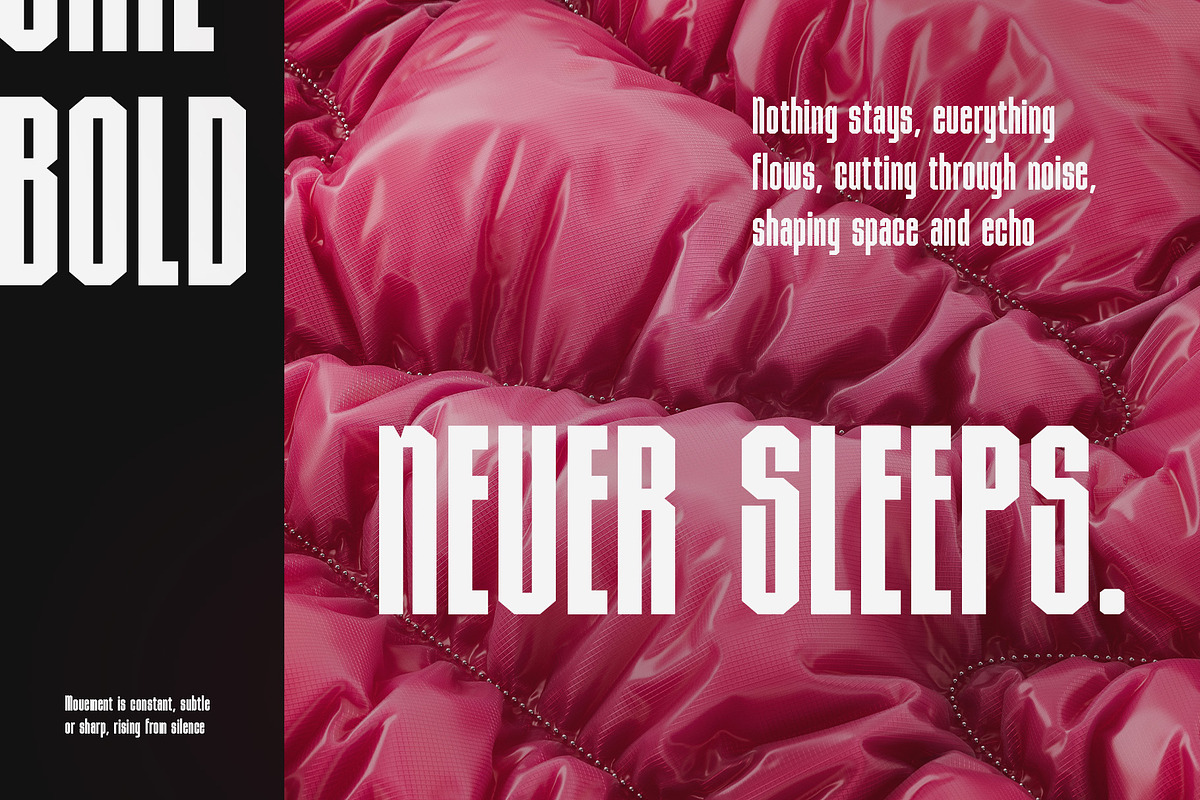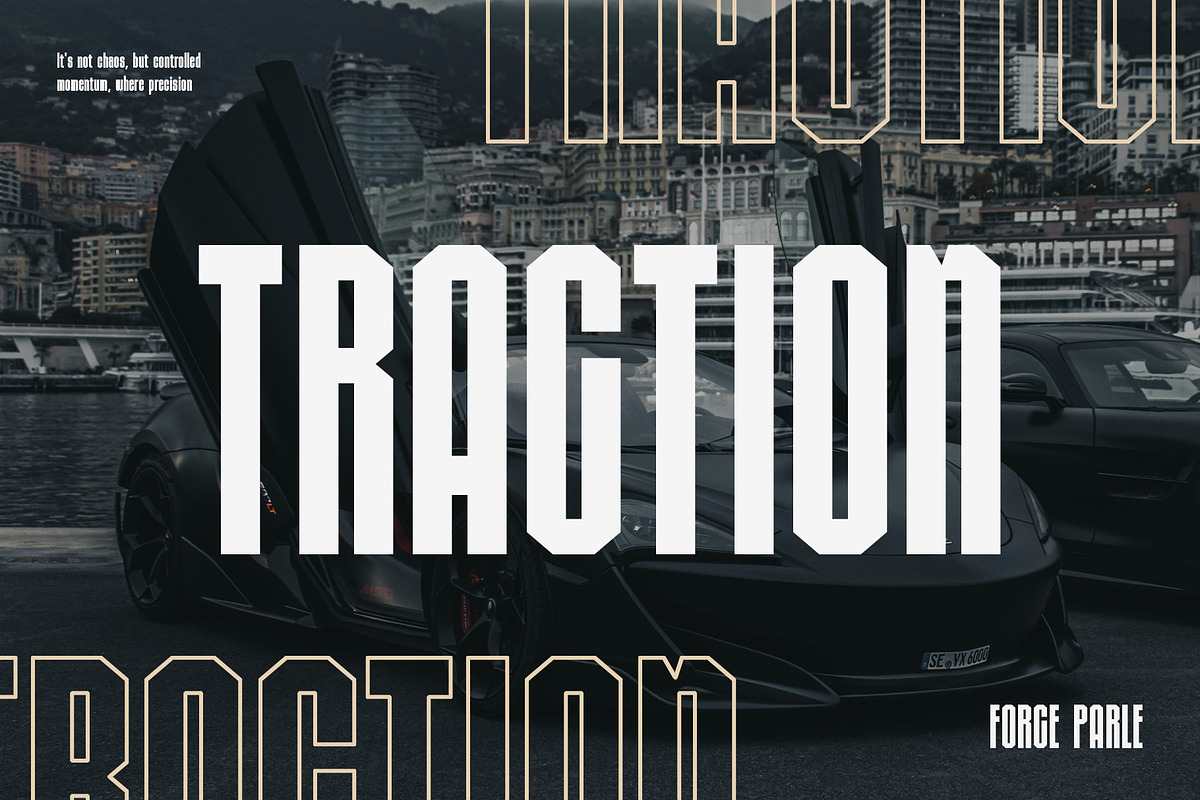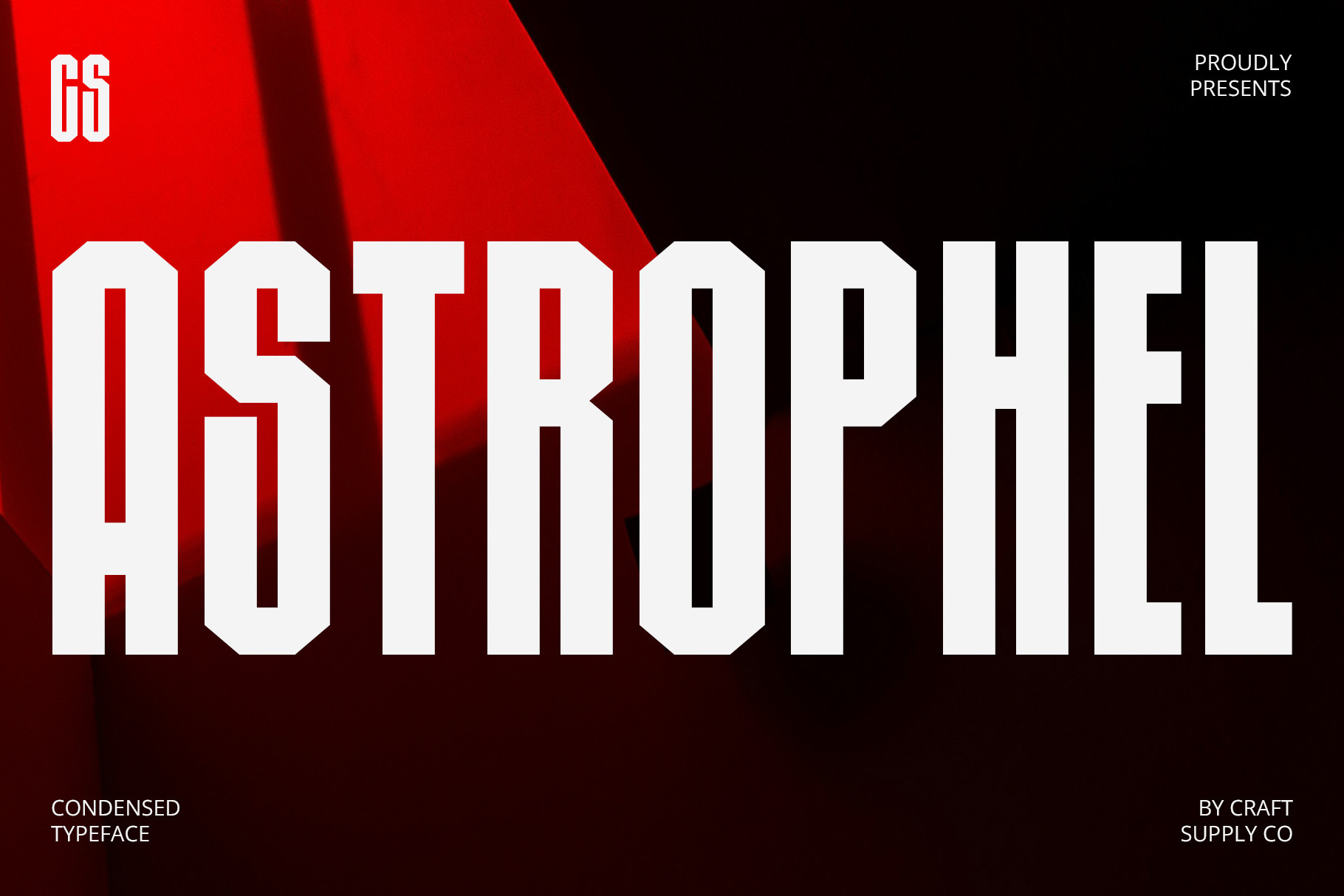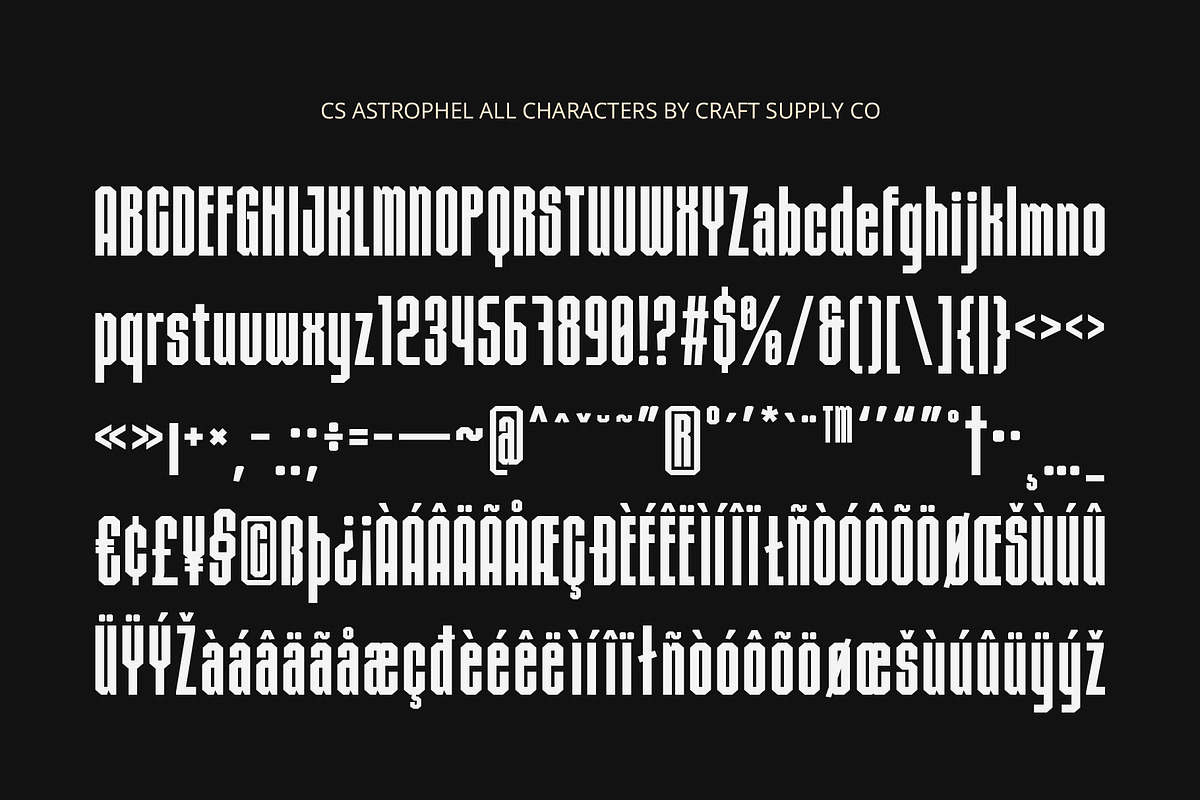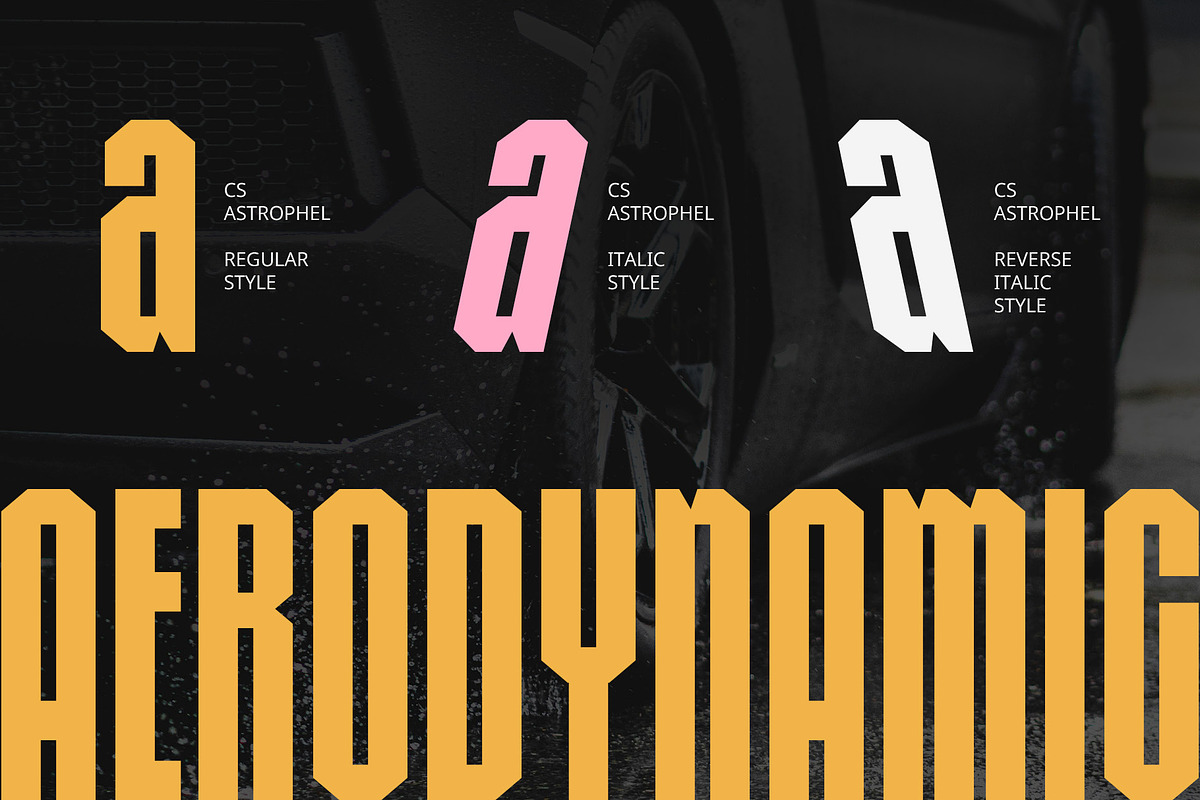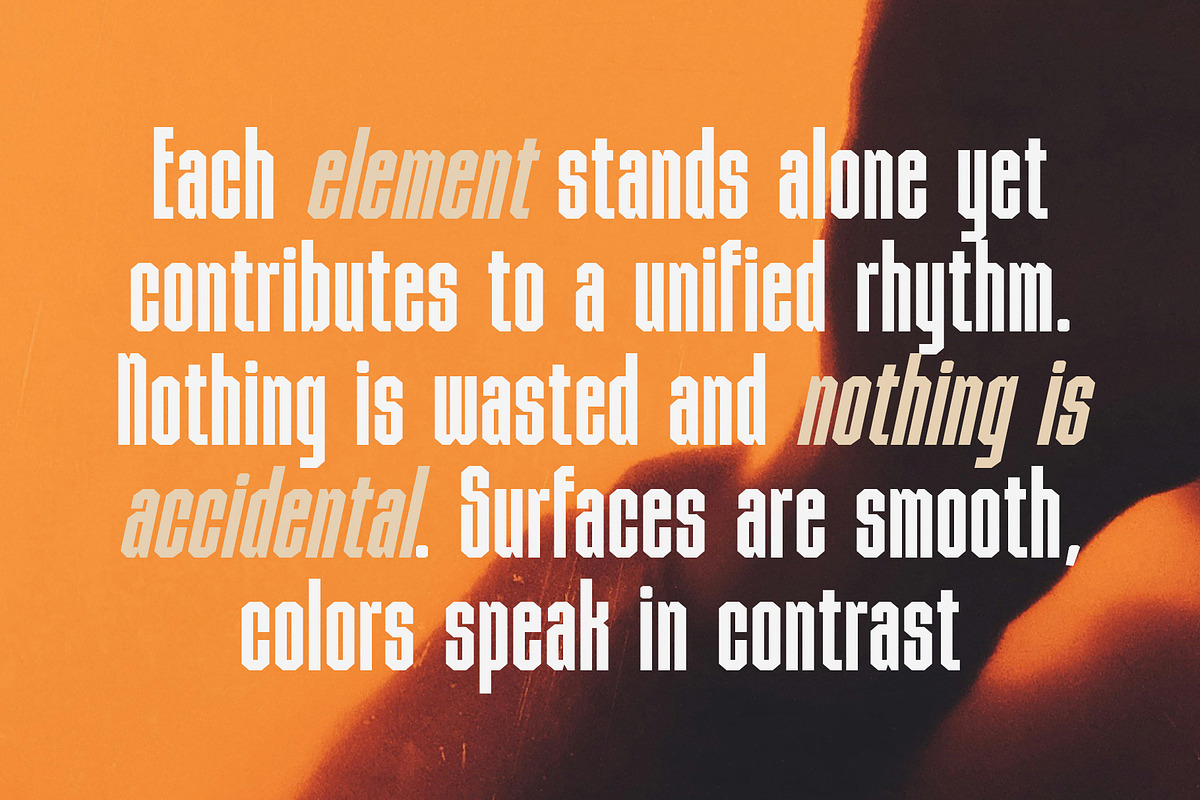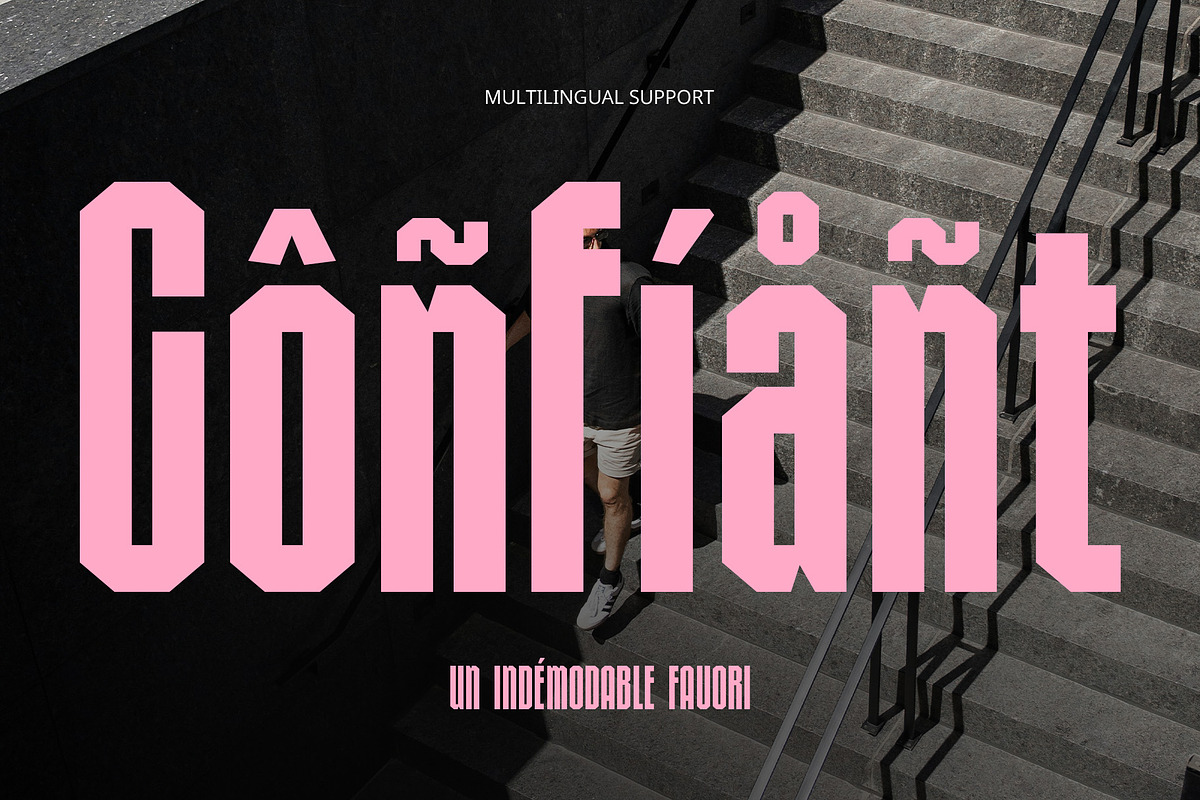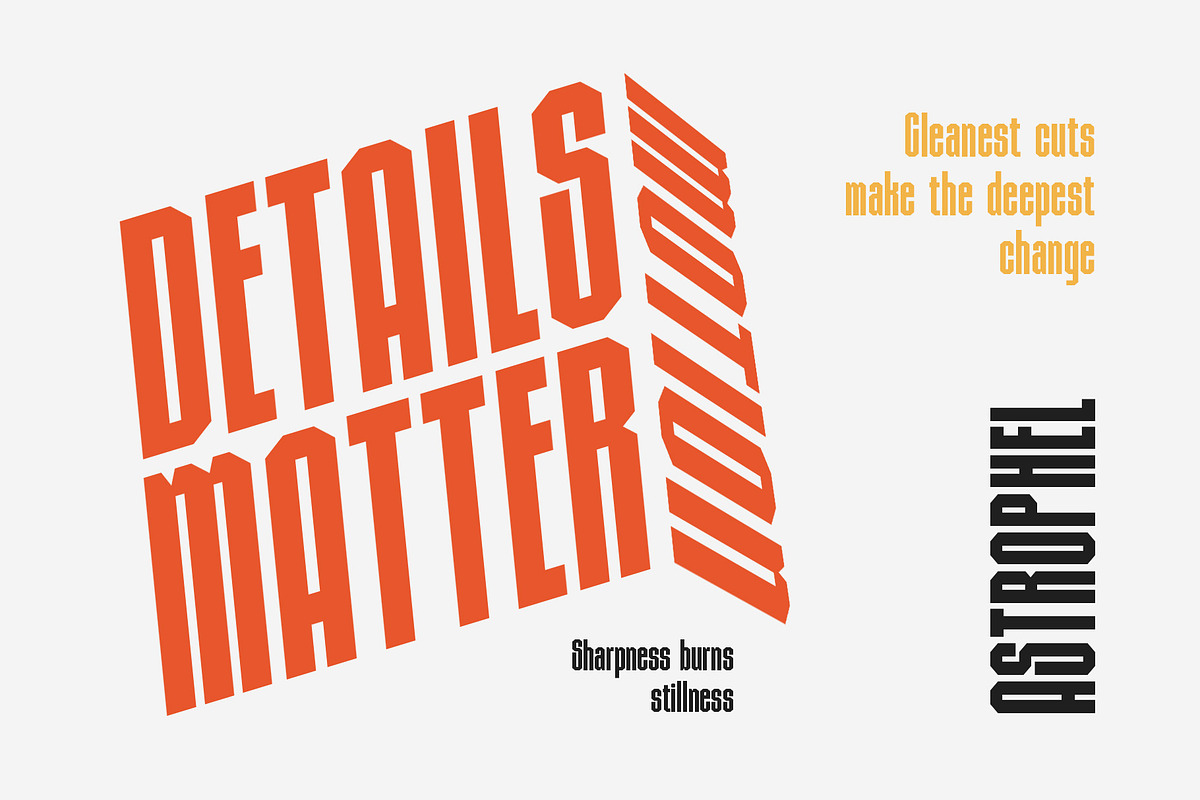
CS Astrophel – Condensed Font
CS Astrophel – Condensed Font: Bold Precision Meets Industrial Style
Sleek and Functional Letterforms CS Astrophel is a modern sans serif font with a condensed and bold structure, designed for maximum impact and space efficiency. Its tall, narrow proportions create a clean and commanding presence, ideal for layouts where space is limited but style is essential.
Industrial Aesthetic with Contemporary Edge Rooted in industrial design, CS Astrophel features strong, geometric shapes and a no-nonsense approach to form. Its minimalist style is enhanced by a technical and professional feel, giving your designs a solid, confident look that feels both modern and utilitarian.
Perfect for Tech-Driven and Corporate Visuals From tech startups to editorial layouts and modern signage, CS Astrophel fits seamlessly into projects that demand clarity, strength, and a forward-thinking identity. Its condensed form ensures excellent legibility, while its bold structure delivers undeniable presence. This font is built for modern communication. Whether you’re designing for a tech brand, a startup identity, digital interface, or data-driven editorial, CS Astrophel brings a serious, sleek, and reliable tone.
Efficient, Bold, and Versatile Whether used in branding, UI design, packaging, or bold headlines, CS Astrophel’s versatility shines across mediums. Its blend of simplicity and industrial elegance makes it a powerful tool for designers seeking modernity with a professional edge.
- CS Astrophel Regular
- CS Astrophel Italic
- CS Astrophel Reverse Italic